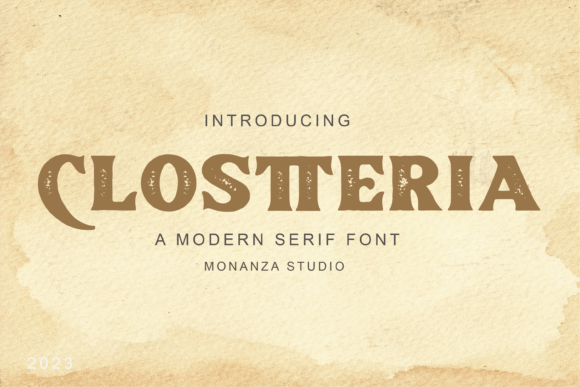
Introducing Clostteria Font, the epitome of elegance and boldness in the world of serif fonts. Crafted by the talented monanza studio, this font is designed to captivate your senses and elevate your creative projects to new heights.
Are you ready to embark on a journey of creativity and sophistication? Clostteria Font is here to inspire and empower you. With its versatile style, this font is perfect for various design endeavors. Whether you're creating stunning wedding invitations that leave a lasting impression or crafting beautiful stationary art that exudes charm, Clostteria Font has got you covered.
Unleash your imagination and let this font become your artistic companion. Its graceful curves and timeless appeal will effortlessly enhance any project, making it a true gem in your design toolbox.
But that's not all! Clostteria Font is not just limited to traditional print media. It is also an ideal choice for captivating social media posts that demand attention. Let your Instagram feed shine with its eye-catching allure, attracting likes and engagement like never before.
What sets Clostteria Font apart is its ability to evoke emotions and create connections. Its bold and elegant nature adds a touch of sophistication to any message, making your words resonate with your audience on a deeper level.
Downloading Clostteria Font is not just about acquiring a mere typeface; it's about embracing a world of creative possibilities. Step into the realm of beauty, where every stroke of this font tells a story and every design becomes an exquisite masterpiece.
So why wait? Unleash your creativity and let Clostteria Font be the secret ingredient that transforms your projects from ordinary to extraordinary. Experience the power of this captivating serif font today and unlock a world of endless design possibilities.